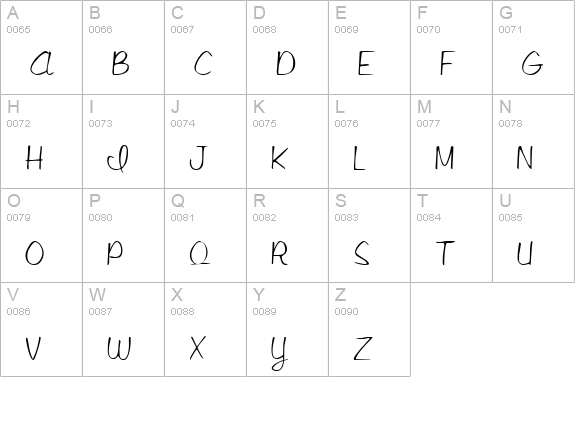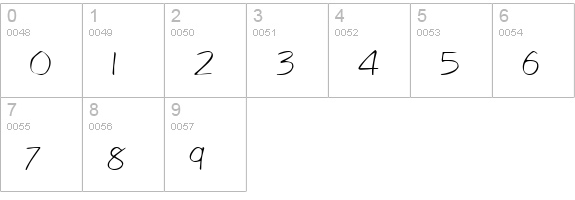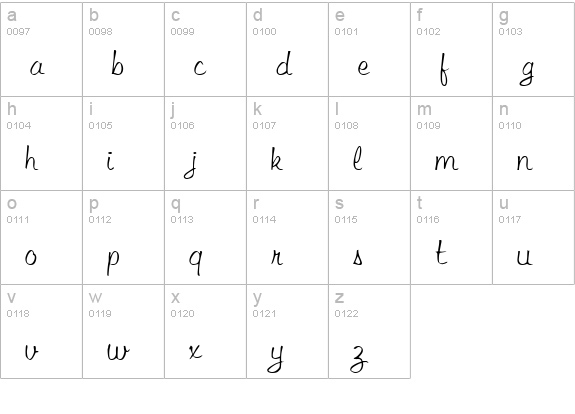
Veilchen Font Details
Veilchen font is a beautifully crafted typeface that exudes elegance and sophistication. Its delicate strokes and graceful curves give a refined touch to any design project. This font is perfect for creating stunning invitations, logos, branding materials, and more. What makes Veilchen font even more appealing is that it is completely free to download. You can easily access this exquisite font at FontsMarket.com without any cost. Its versatility and timeless appeal make it a must-have addition to any designer's toolkit. Elevate your creations with Veilchen font and watch your designs come to life with its charm and grace.